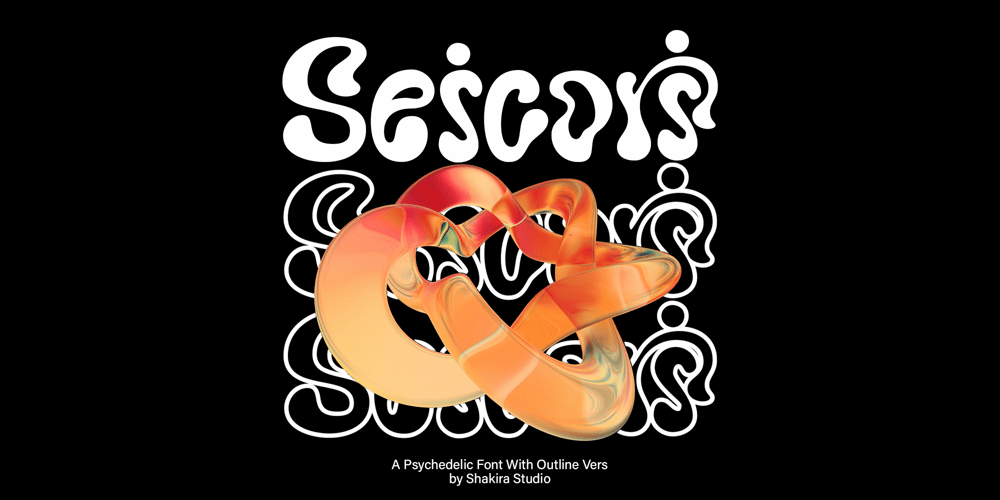
Seicori
Seicori font
Seicori Font Family was designed by Idhham Cholid Rikzano Yahya and published by Shakira Studio. Seicori contains 2 styles and family package options. Say hello to new serif font, Seicori!Introducing Seicori, a captivating font that takes you on a journey into the realm of psychedelia. Falling under the category of psychedelic serif display fonts, Seicori offers a mesmerizing experience that transcends traditional typography. With its regular and outline versions, Seicori invites you to explore two distinct yet interconnected dimensions.Follow my shop for upcoming updates, and for more of my work,Thank you